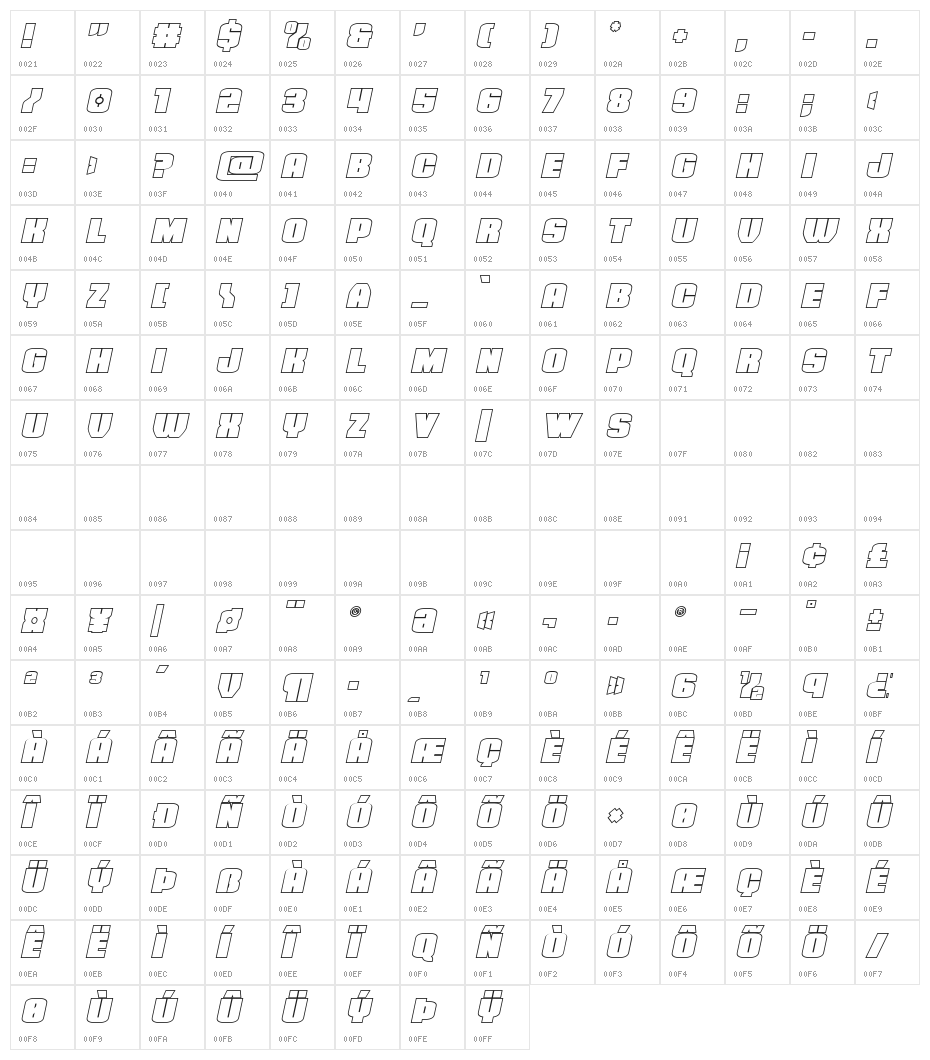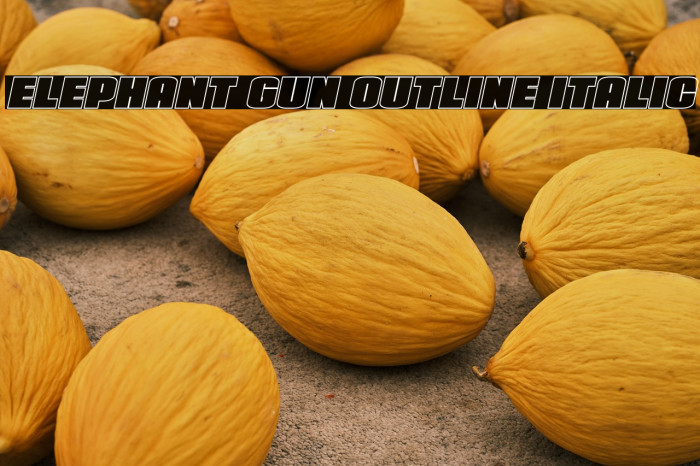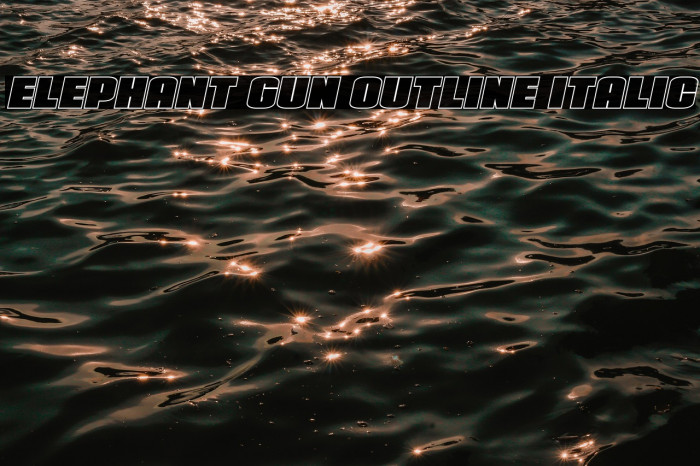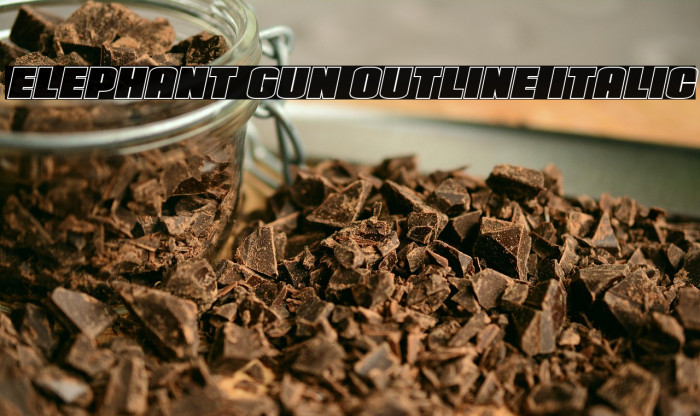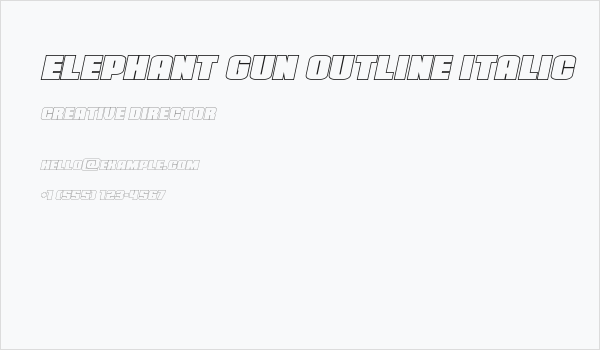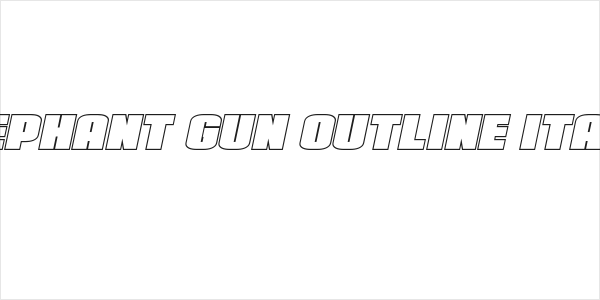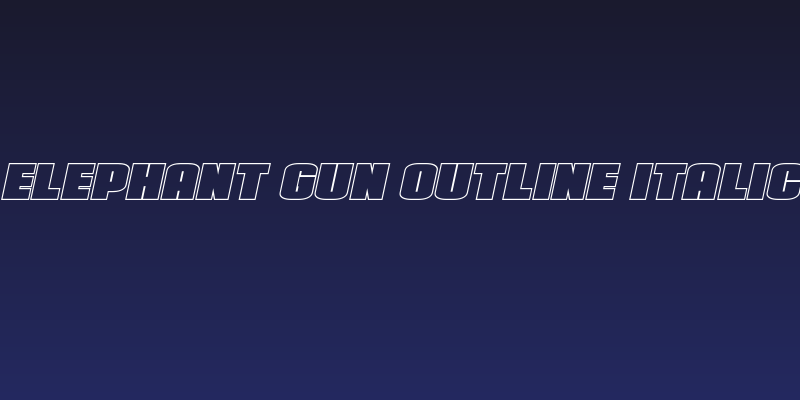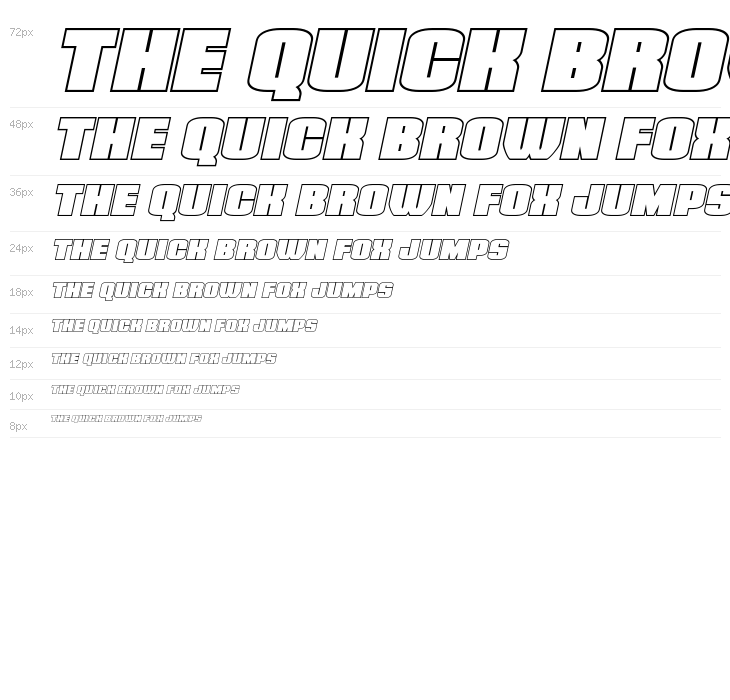
Elephant Gun Outline Italic Font
Elephant Gun Outline Italic Description
This font features a bold, italicized outline style that gives it a strong and dynamic appearance. The uppercase and lowercase letters are designed with a consistent slant, enhancing the italic effect. The characters are outlined, creating a hollow interior that adds a unique visual interest. The numbers and special characters follow the same stylistic approach, ensuring uniformity across all glyphs. The font's boldness and outline design make it stand out, making it suitable for attention-grabbing headlines or titles. Its geometric and angular shapes contribute to a modern and edgy look, while the italic slant adds a sense of motion and energy.